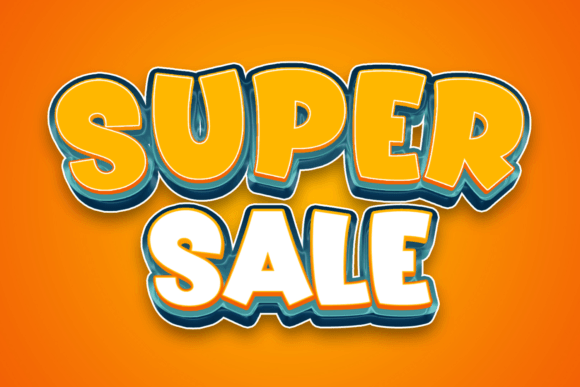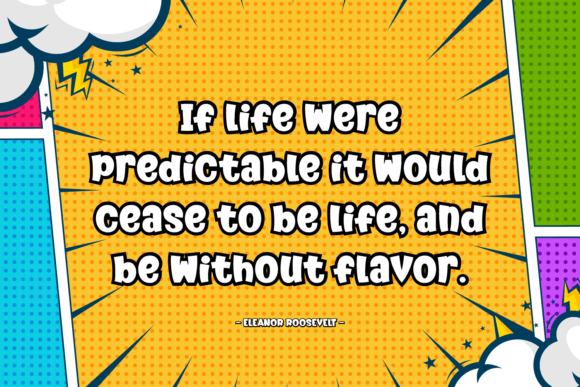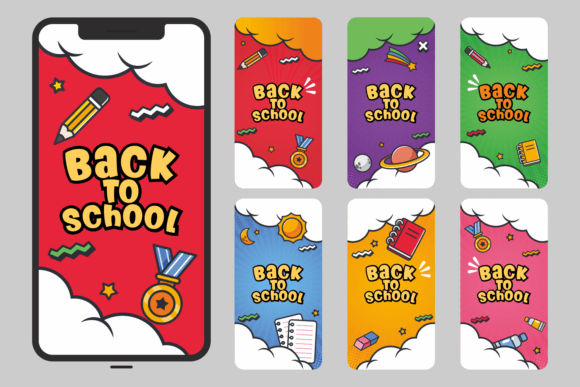
Introduction to Magic Tools Font
Imagine you’re working on a creative project, and you need the perfect font to grab attention. You’re scrolling through your design resource library, searching for the perfect combination of style and functionality. That’s when you stumble upon Magic Tools Font – a bold and playful display font that’s sure to elevate your design game.
As a designer, you’re always on the lookout for high-quality fonts that can help you create eye-catching typography. Magic Tools Font is more than just a font – it’s a design solution that can be used on a variety of materials, from advertising posters to website headlines.
Key Features of Magic Tools Font
- Includes a variety of glyphs with transparent background for easy customization.
- Designed with a large character set, including uppercase and lowercase letters, numbers, and symbols.
- Unique characteristic: Unique font styles and shapes that can add a touch of magic to any design project.
Honest Review: Magic Tools Font
As a designer, I’m always on the lookout for high-quality design resources that can elevate my creative projects. Recently, I stumbled upon the Magic Tools Font, and I was excited to give it a try.
Here are some things that I love about the Magic Tools Font: ✨
- The font has a transparent background, making it easy to use in any design project.
- The font is highly customizable, allowing me to adjust the size, color, and style to fit my needs.
- The design is clean and modern, perfect for a wide range of creative projects.
However, there are a few limitations to the Magic Tools Font that I want to mention: ⚠️
- The font is not suitable for body text, as it’s a bit too ornate and distracting.
- The font is not as versatile as some other fonts on the market, which may limit its use in certain projects.
Overall, I’m impressed with the Magic Tools Font. It’s a great addition to any design resource collection, and I appreciate the effort that went into creating it. While it may have some limitations, it’s still a valuable tool for any designer looking to add a touch of magic to their creative projects.
Tips for Getting the Most Out of Magic Tools Font
Experiment with different font sizes, colors, and combinations to achieve the desired look for your creative project. Use the font in conjunction with other design elements, such as images and shapes, to create a cohesive and visually appealing design.
Common Use Cases for Magic Tools Font
Use the Magic Tools Font for a variety of creative projects, including logos, graphics, presentations, and documents. The font’s versatility and high-quality design make it perfect for designers, entrepreneurs, and individuals looking to elevate their brand and creative work.